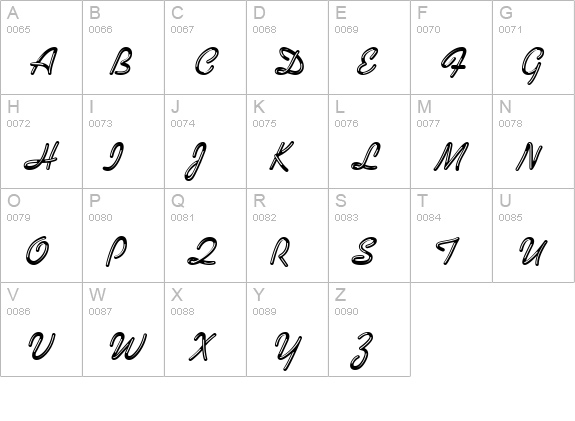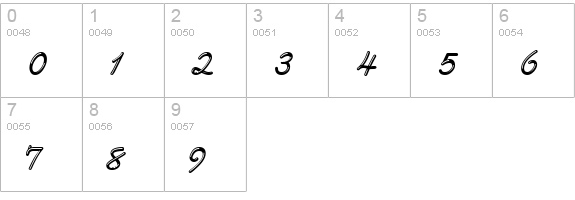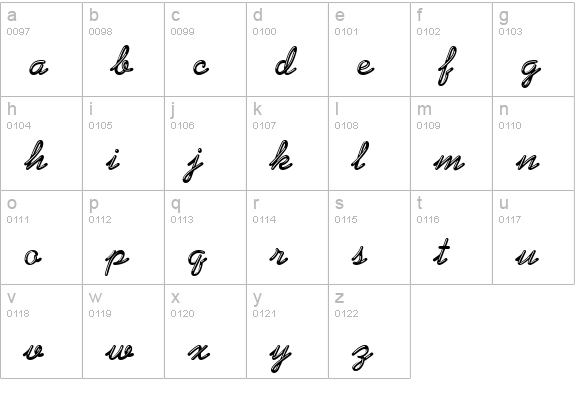
KaffeehausNeon Font Details
KaffeehausNeon is a stylish and modern display font that exudes a vibrant and energetic vibe. With its sleek lines and neon-inspired design, this font is perfect for making a statement in any project. The unique combination of boldness and sophistication makes KaffeehausNeon stand out from the crowd. Best of all, KaffeehausNeon is completely free to use! You can download this eye-catching font at FontsMarket.com and add a touch of neon flair to your designs without any cost. Whether you're working on posters, logos, or social media graphics, KaffeehausNeon is sure to grab attention and leave a lasting impression. Don't miss out on this exciting font that will surely elevate your creative projects to the next level.